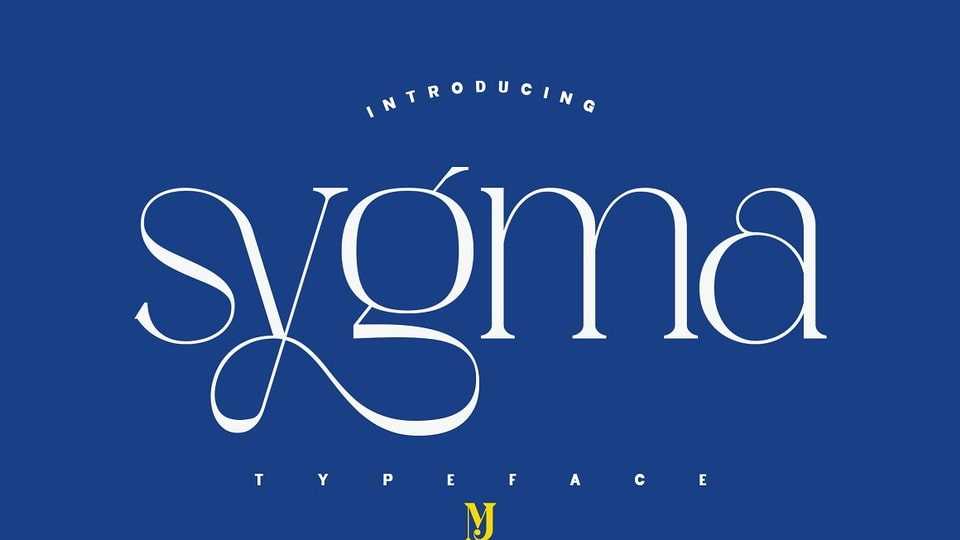
Download Sygma Display font, an elegant and sophisticated serif typeface. Sygma font is designed to add a touch of class and refinement to any project and is sure to make a lasting impression on any audience.